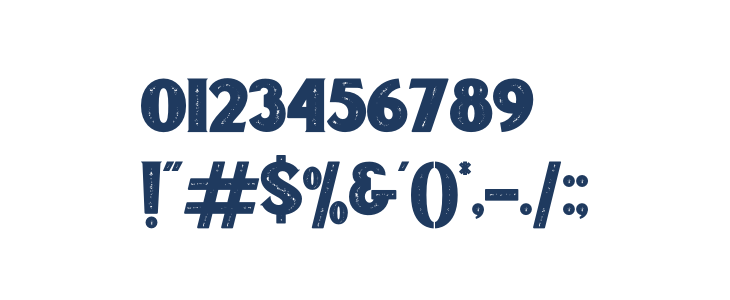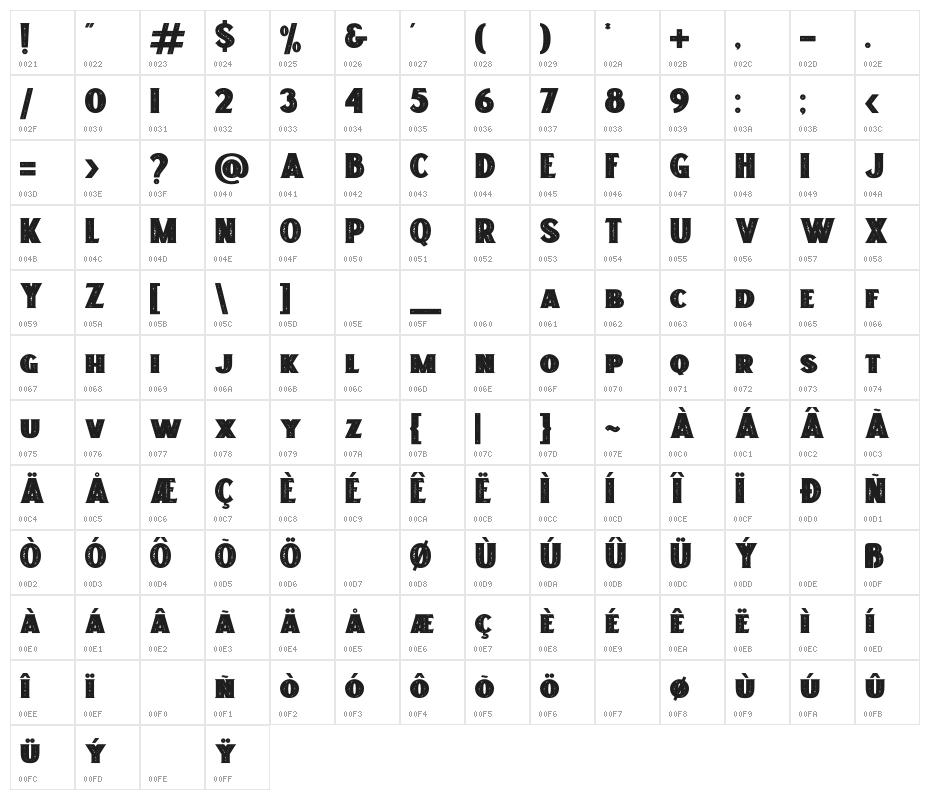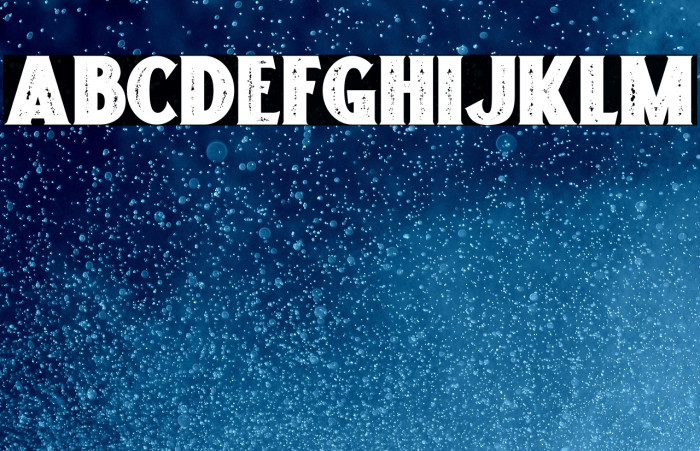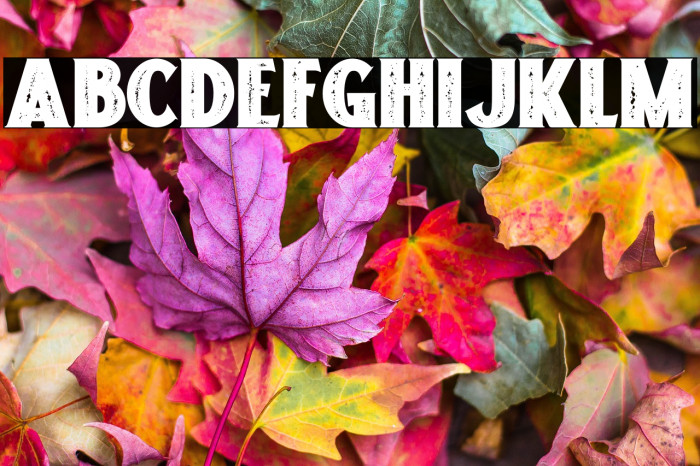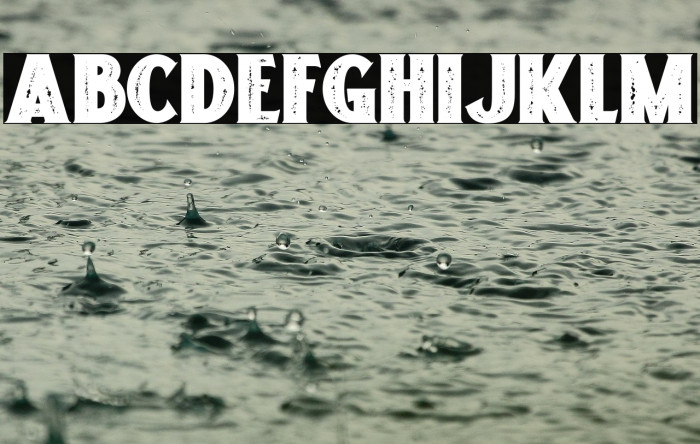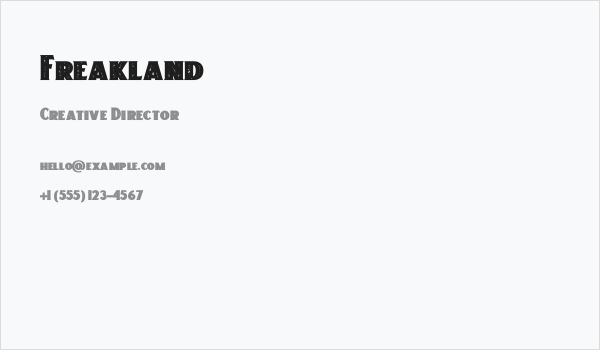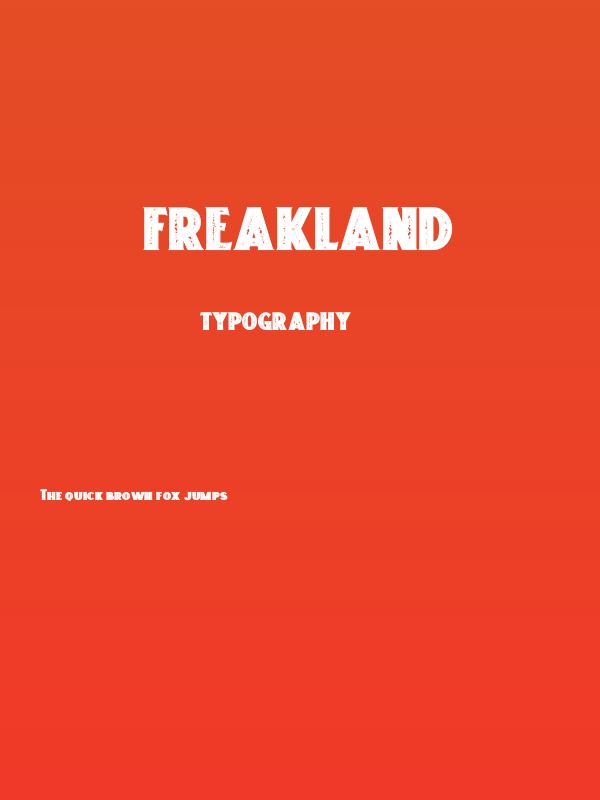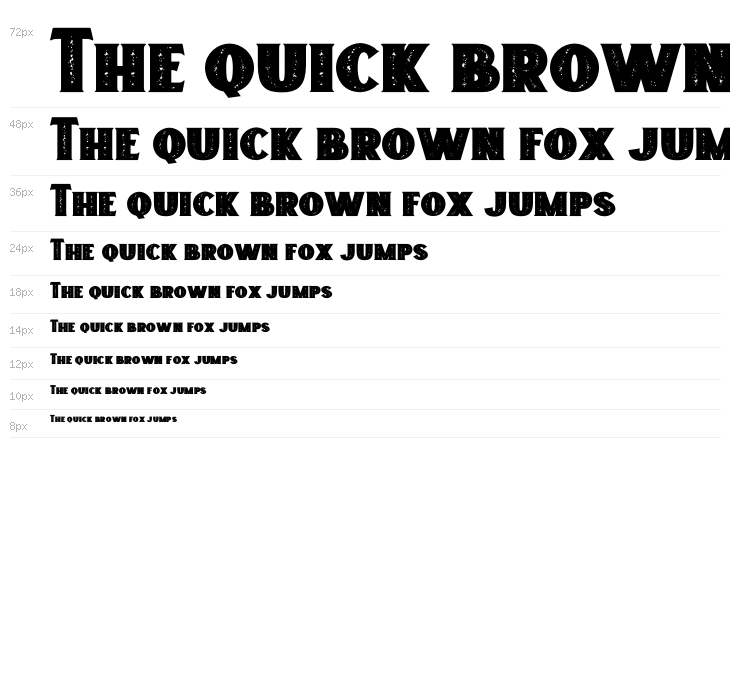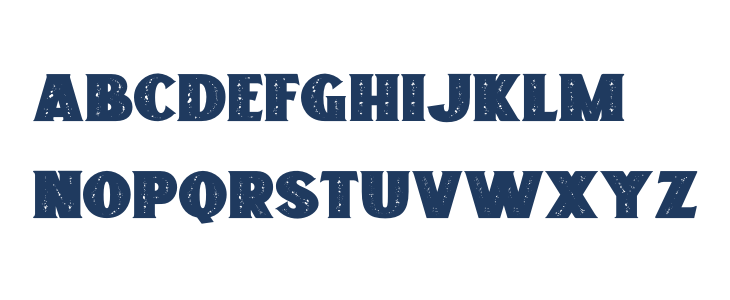
Freakland Font
Freakland Description
This font features a bold and distressed style, with a textured appearance that gives it a rugged, vintage feel. The uppercase and lowercase letters are consistent in their boldness, with a slightly condensed width that adds to its impactful presence. The numerals and special characters maintain the same distressed texture, ensuring a cohesive look across all characters. The font's unique style makes it stand out, ideal for projects that require a strong, eye-catching typeface with a touch of nostalgia.
| Proposed Projects | Ideal for posters, album covers, vintage-themed branding, and any design needing a bold, textured typeface. |